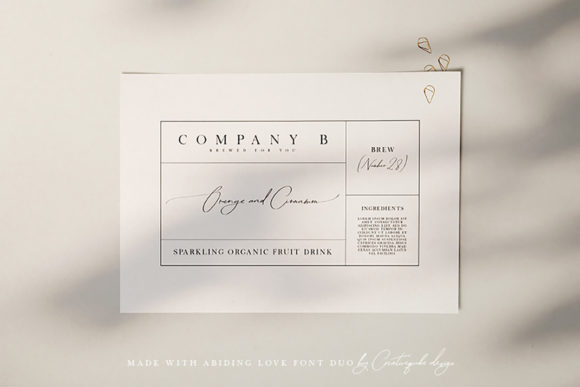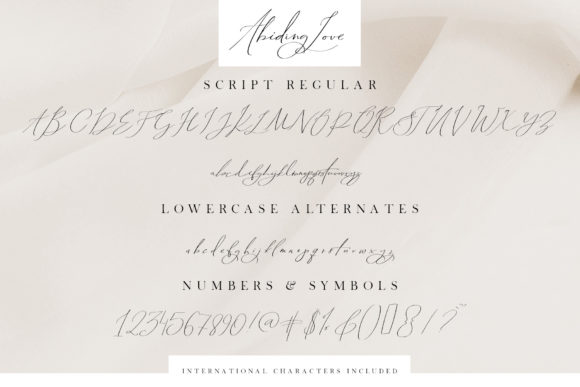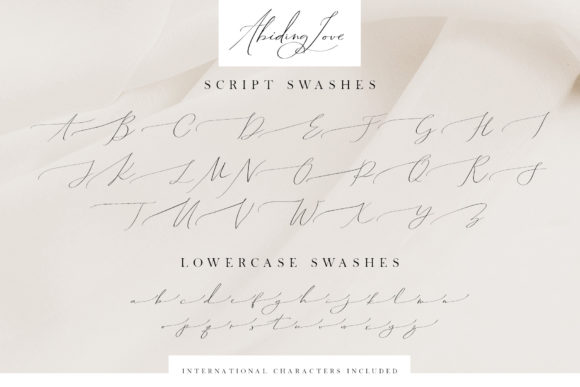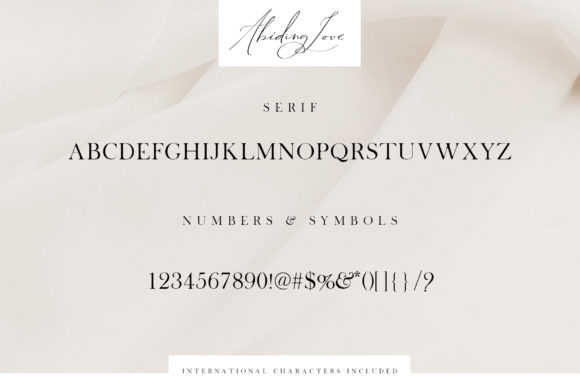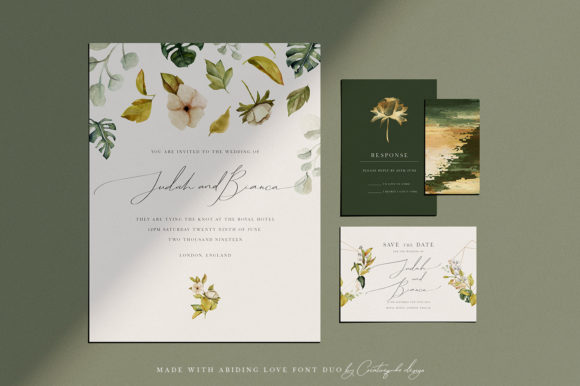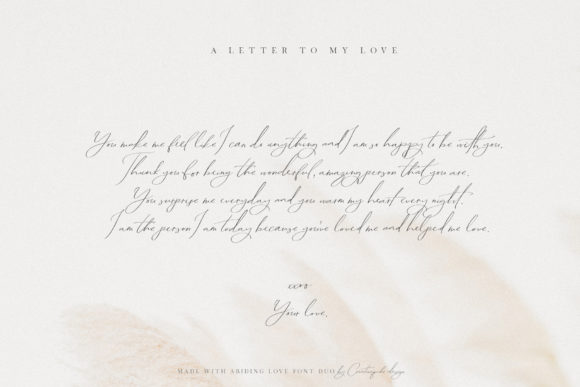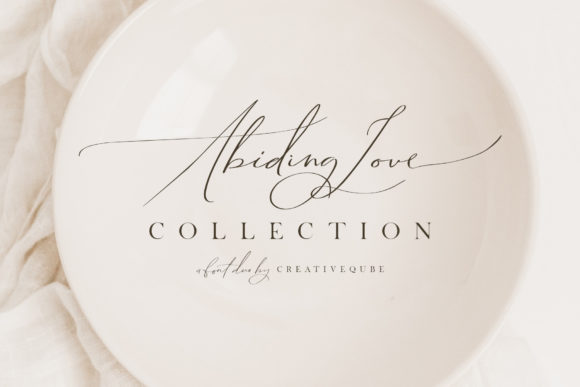
Discover the Beauty of Abiding Love Font: A Perfect Choice for Designers and Crafters
Are you a designer or crafter looking for a unique and captivating font to elevate your creative projects? Look no further than the Abiding Love Font, a stunning typeface that exudes warmth, elegance, and sophistication. In this article, we’ll delve into the world of Abiding Love Font, exploring its features, benefits, and uses, as well as the inspiration behind its creation.
What is Abiding Love Font?
Abiding Love Font is a beautifully crafted typeface, designed to convey a sense of love, care, and devotion. Its delicate and intricate design makes it perfect for a wide range of creative projects, from wedding invitations and stationery to branding, packaging, and digital media. The font’s unique charm and character are sure to capture the hearts of designers, crafters, and anyone looking for a special touch in their work.
The Inspiration Behind Abiding Love Font
The Abiding Love Font was created with the intention of capturing the essence of enduring love and commitment. Its design is inspired by the intricate patterns and flourishes found in traditional calligraphy and hand-lettering. The font’s creator aimed to evoke a sense of nostalgia and romance, making it an ideal choice for projects that require a touch of warmth and personality.
Key Features of Abiding Love Font
- Unique and Intricate Design: Abiding Love Font boasts a distinctive and ornate design, featuring delicate swashes, flourishes, and intricate patterns.
- Hand-Crafted with Love: Each letter and character has been carefully crafted by hand, ensuring a level of detail and precision that sets it apart from other fonts.
- Highly Versatile: Abiding Love Font can be used for a wide range of creative projects, from digital media to print materials, and is suitable for both personal and commercial use.
- Elegant and Sophisticated: The font’s elegant design and sophisticated feel make it perfect for projects that require a touch of luxury and refinement.
Benefits of Using Abiding Love Font
So, why choose Abiding Love Font for your creative projects? Here are just a few benefits of using this stunning typeface:
- Adds a Touch of Personality: Abiding Love Font brings a unique and personal touch to your projects, setting them apart from others and making them more memorable.
- Evokes Emotion: The font’s romantic and nostalgic feel is sure to evoke emotions and create a connection with your audience.
- Enhances Brand Identity: Abiding Love Font can help establish a strong brand identity, particularly for businesses that want to convey a sense of love, care, and commitment.
- Perfect for Special Occasions: The font’s elegant and sophisticated design makes it ideal for special occasions, such as weddings, anniversaries, and Valentine’s Day.
Using Abiding Love Font in Your Creative Projects
Abiding Love Font is incredibly versatile and can be used in a wide range of creative projects. Here are a few ideas to get you started:
- Wedding Invitations and Stationery: Use Abiding Love Font to create beautiful and romantic wedding invitations, stationery, and other paper goods.
- Branding and Packaging: Add a touch of elegance and sophistication to your brand’s packaging and marketing materials.
- Digital Media: Use Abiding Love Font in your digital media, such as social media graphics, blog posts, and email newsletters.
- Crafting and Scrapbooking: Add a personal touch to your crafting and scrapbooking projects with Abiding Love Font.
In conclusion, Abiding Love Font is a stunning and versatile typeface that is sure to capture the hearts of designers, crafters, and anyone looking for a unique and captivating font. Its intricate design, elegant feel, and romantic inspiration make it perfect for a wide range of creative projects. Whether you’re looking to add a touch of personality, evoke emotion, or enhance your brand identity, Abiding Love Font is an excellent choice.
So, why not give Abiding Love Font a try? With its ease of use and flexibility, you can experiment with different projects and applications, exploring the many possibilities that this beautiful font has to offer.